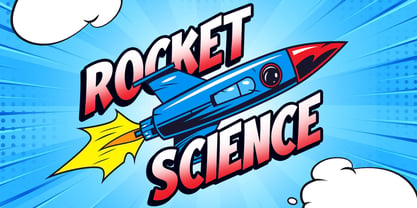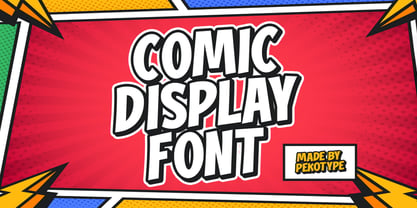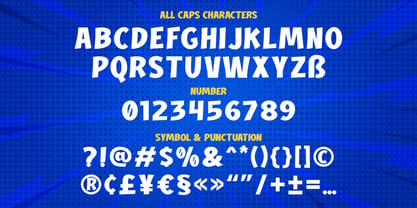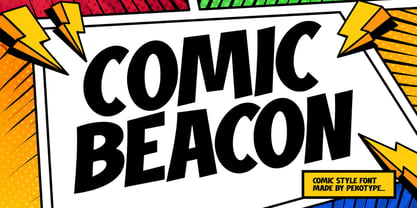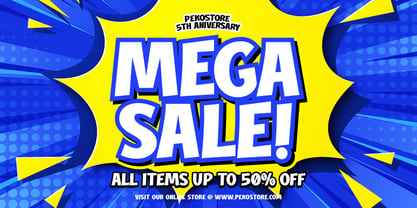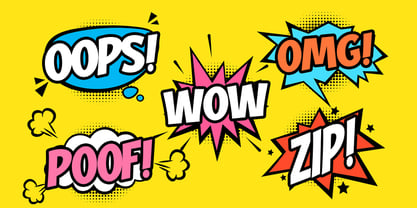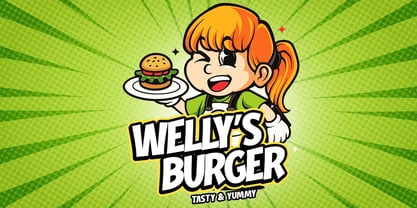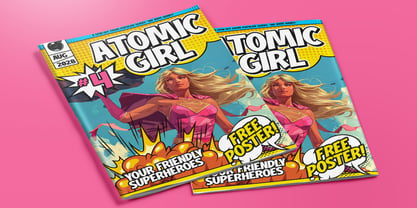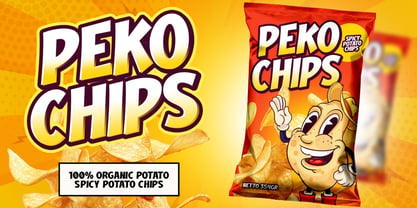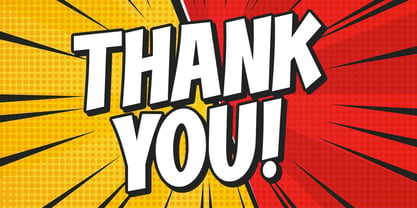
Comic Beacon
by Pekotype
The Comic Beacon Font Family was designed by Galang Bryan and published by Pekotype. Comic Beacon contains 1 styles. More about this family
COMIC BEACON is a bold comic display font inspired by retro and pop art styles. With its thick strokes, playful shapes, and expressive character, it’s perfect for comic projects, posters, logos, merchandise, social media graphics, and eye-catching branding. Designed to be fun, energetic, and easy to read, COMIC BEACON helps bring personality and creativity to any design while making your message stand out.
Designers: Galang Bryan
Foundry: Pekotype